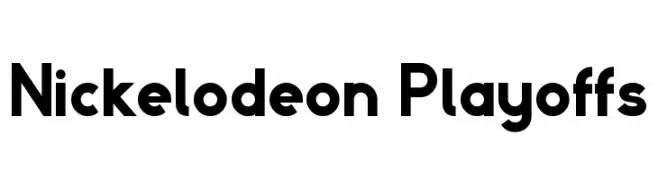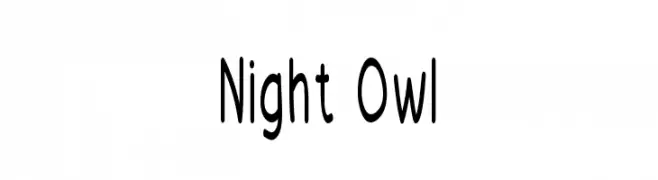
A playful, handwritten font with a casual and whimsical style.
A dynamic, brush-style font with expressive, calligraphic strokes.
A bold, playful font with a blocky, cartoonish style.
A clean, modern sans-serif font with a utilitarian aesthetic.
A bold, playful font with rounded strokes and a friendly appearance.